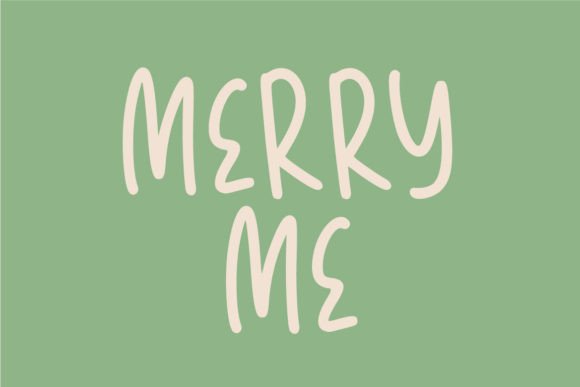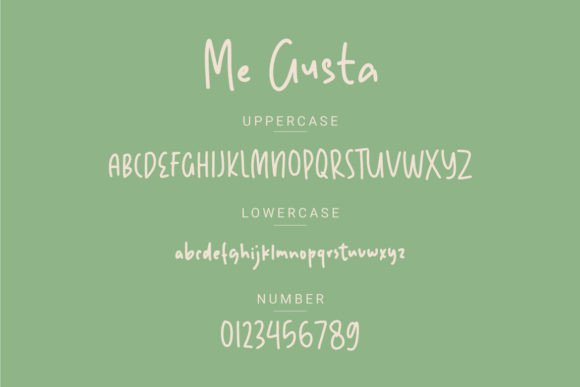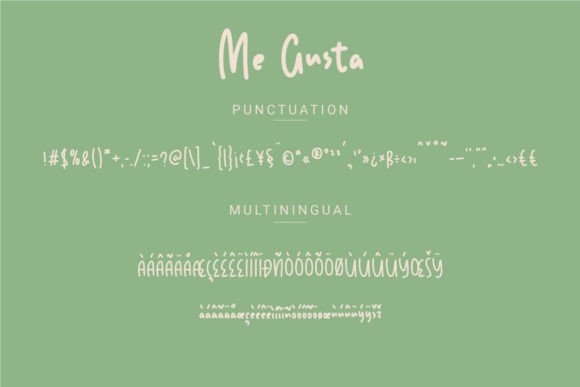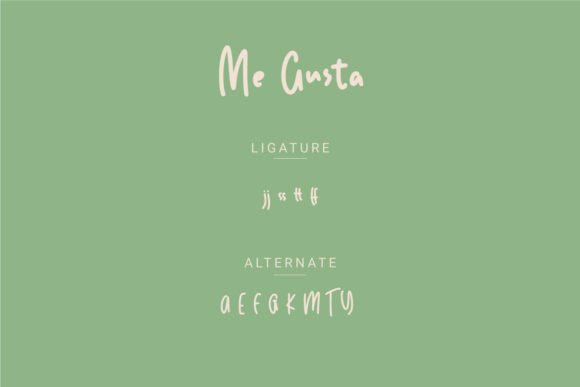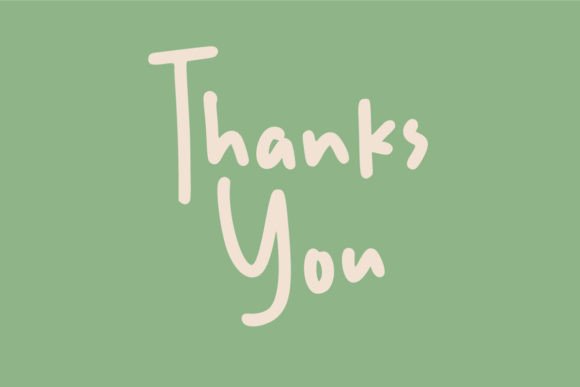
Introduction to Me Gusta Font
Do you remember that moment when you stumbled upon the perfect font for your creative project? The one that immediately sparks excitement and makes you think, “This is it, this is the one!” For many designers, that moment is when they discover the Me Gusta Font. This casual, handwritten font is more than just a design resource – it’s a key to unlocking a friendly, approachable atmosphere in your work.
With its slightly irregular baseline and varying stroke weights, Me Gusta Font has a natural, hand-drawn appearance that’s perfect for designs that aim to create a sense of warmth and personality. Whether you’re working on a project with a transparent background or need a high-quality font for your next design, Me Gusta Font is an excellent choice.
Key Features of Me Gusta Font
- High-quality design resource with a transparent background, ideal for creative projects.
- Me Gusta Font is available in 3 different styles: Regular, Bold, and Italic, offering versatility for various design needs.
- Features a clean and modern design, perfect for use in logos, branding, and other visual identity projects.
Honest Review: Me Gusta Font
I recently came across Me Gusta Font while searching for a free design resource for my latest creative project. I was immediately drawn to its unique and playful aesthetic, making it perfect for adding a touch of personality to my design.
- ✨ High quality and crisp typography, making it suitable for various design applications.
- ✨ Unique and fun design style that’s sure to stand out in a crowd.
- ✨ Transparent background, allowing for easy customization and layering.
- ⚠️ Limited font styles available, which might not be ideal for projects requiring multiple font variations.
Overall, I’m impressed with Me Gusta Font’s design quality and unique style. While it may not be perfect, it’s a great addition to any designer’s toolkit. If you’re looking for a fun and free design resource, Me Gusta Font is definitely worth checking out.
Me Gusta Font is a high-quality design resource ideal for creative projects that require a unique and stylish touch. With its transparent background, this font is perfect for designers looking for a free download to enhance their designs.
Tips for Getting the Most Out of Me Gusta Font
To get the most out of Me Gusta Font, use it in combination with other design elements to create a unique and eye-catching design. Experiment with different font sizes and colors to find the perfect balance for your project.
Common Use Cases for Me Gusta Font
Me Gusta Font is ideal for a variety of creative projects, including social media graphics, blog posts, and marketing materials. Its high-quality design and transparent background make it perfect for designers looking for a unique and stylish font to enhance their designs.